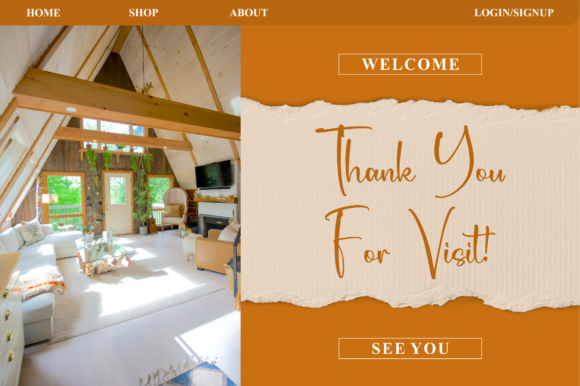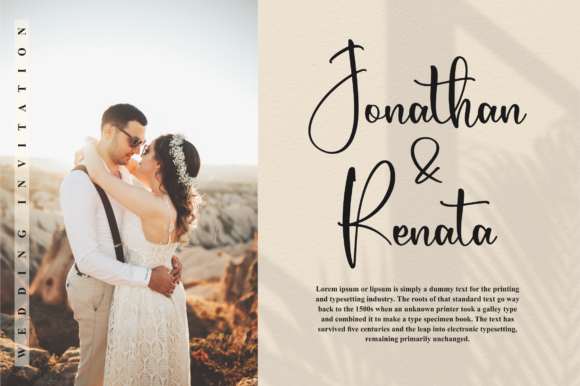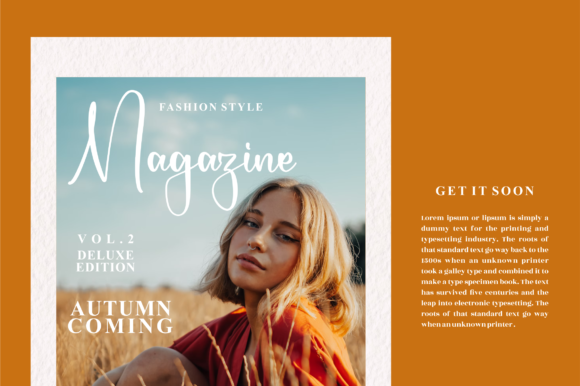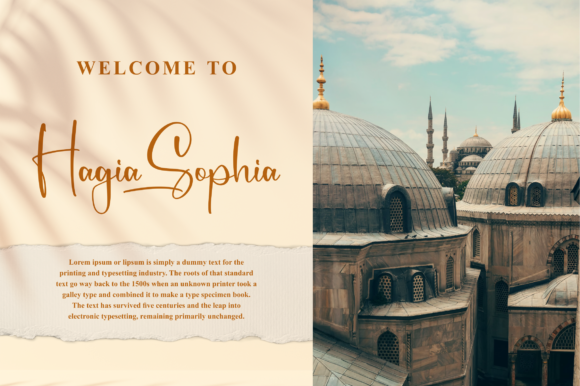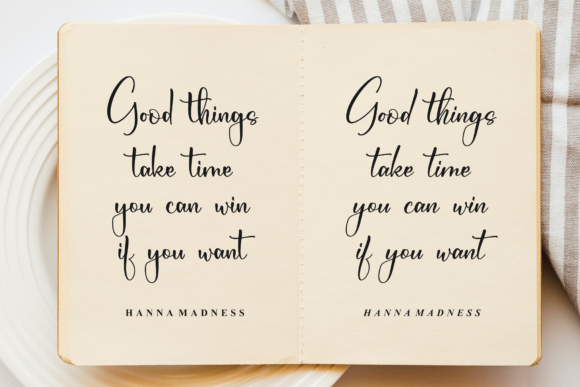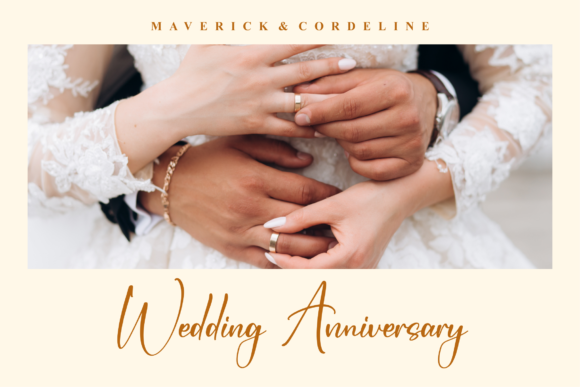
Introducing Brithalya Rosela Font: Elevate Your Designs with Elegance
In the world of typography, a font can make or break a design. For designers and crafters looking for that perfect touch of elegance and sophistication, Brithalya Rosela Font is a game-changer. This delicate and fashionable script font is designed to enhance any branding project, making it a versatile choice for a wide range of applications.
The Beauty of Brithalya Rosela
Brithalya Rosela Font stands out with its intricate and flowing script style, perfect for adding a touch of luxury and refinement to your designs. Its delicate strokes and elegant curves make it an ideal choice for projects where a high level of sophistication is desired. Whether you’re working on a logo, a t-shirt printing project, or creating unique products, Brithalya Rosela ensures that your designs exude quality and style.
One of the key advantages of Brithalya Rosela Font is its versatility. It doesn’t matter if you’re designing a logo for a high-end brand, creating custom t-shirts, or developing a line of creative products; this font adapts seamlessly to various contexts. Its ability to maintain its elegance and readability in different sizes and applications makes it a valuable asset for any designer or crafter.
Perfect for Branding Projects
Branding is all about creating a memorable impression, and typography plays a crucial role in this process. Brithalya Rosela Font, with its unique and stylish appearance, can help elevate your brand’s visual identity. It’s perfect for:
- Logos: Create a lasting first impression with a logo that stands out.
- T-shirt Printing: Add a fashionable and trendy touch to your apparel designs.
- Creative Products: Enhance the aesthetic appeal of your products, from packaging to promotional materials.
Why Choose Brithalya Rosela?
There are several reasons why Brithalya Rosela Font should be your go-to choice for your design projects:
- Elegance: It adds a touch of sophistication and luxury to any design.
- Versatility: Suitable for a wide range of applications, from digital to print.
- Readability: Maintains clarity and legibility, even at smaller sizes.
- Uniqueness: Stands out from more common fonts, giving your designs a distinctive look.
Tips for Using Brithalya Rosela
To get the most out of Brithalya Rosela Font, consider the following tips:
- Pair it wisely: Combine Brithalya Rosela with simpler fonts for a balanced look.
- Experiment with colors: While it looks great in black, don’t be afraid to try it out in different colors to match your brand’s palette.
- Play with sizes: Its elegance shines through in various sizes, so experiment to find the perfect fit for your project.
Brithalya Rosela Font is more than just a script font; it’s a design statement. Its delicate and fashionable style makes it perfect for designers and crafters looking to add a touch of elegance to their projects. With its versatility, readability, and unique charm, Brithalya Rosela is set to become your favorite go-to font for all your branding needs. Elevate your designs with the sophistication and style that Brithalya Rosela offers, and watch your projects stand out like never before.
Whether you’re a professional designer or a crafter with a passion for creating beautiful products, Brithalya Rosela Font is a valuable addition to your toolkit. Its ability to bring a touch of elegance and sophistication to any project makes it a versatile and powerful design asset. So, why wait? Dive into the world of Brithalya Rosela and discover how this exquisite font can transform your designs, making them more captivating and memorable.